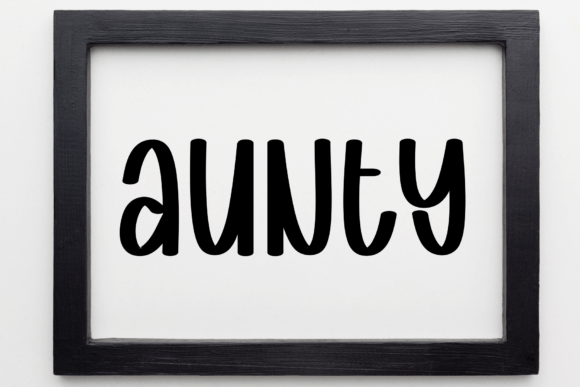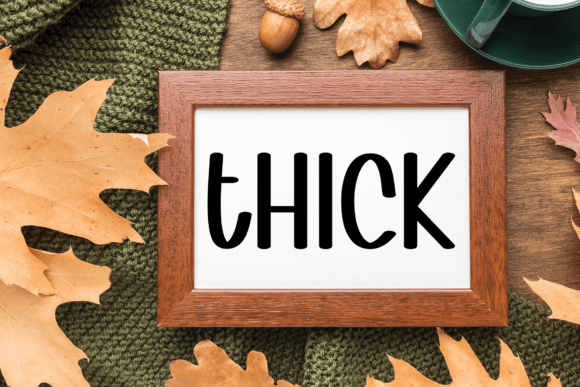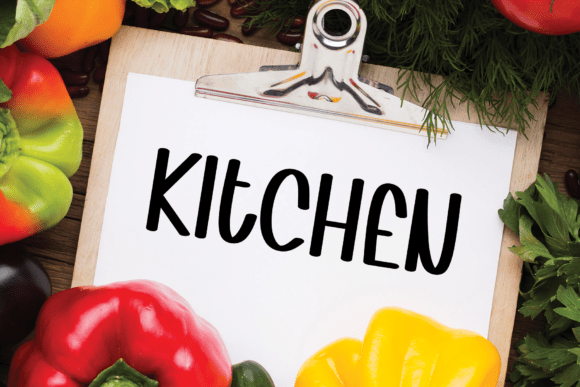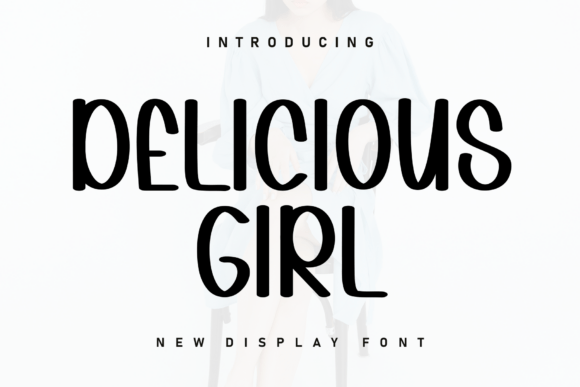
Introduction to Delicious Girl Font
Delicious Girl is a sweet and beautiful handwritten font.
Featuring characters that dance along the baseline, this font will add a cozy accent to any design project you wish to create .
Delicious Girl Font offers exceptional quality and versatility, making it a valuable addition to your design toolkit. Whether you’re creating for personal projects or commercial use, Delicious Girl Font delivers professional results.